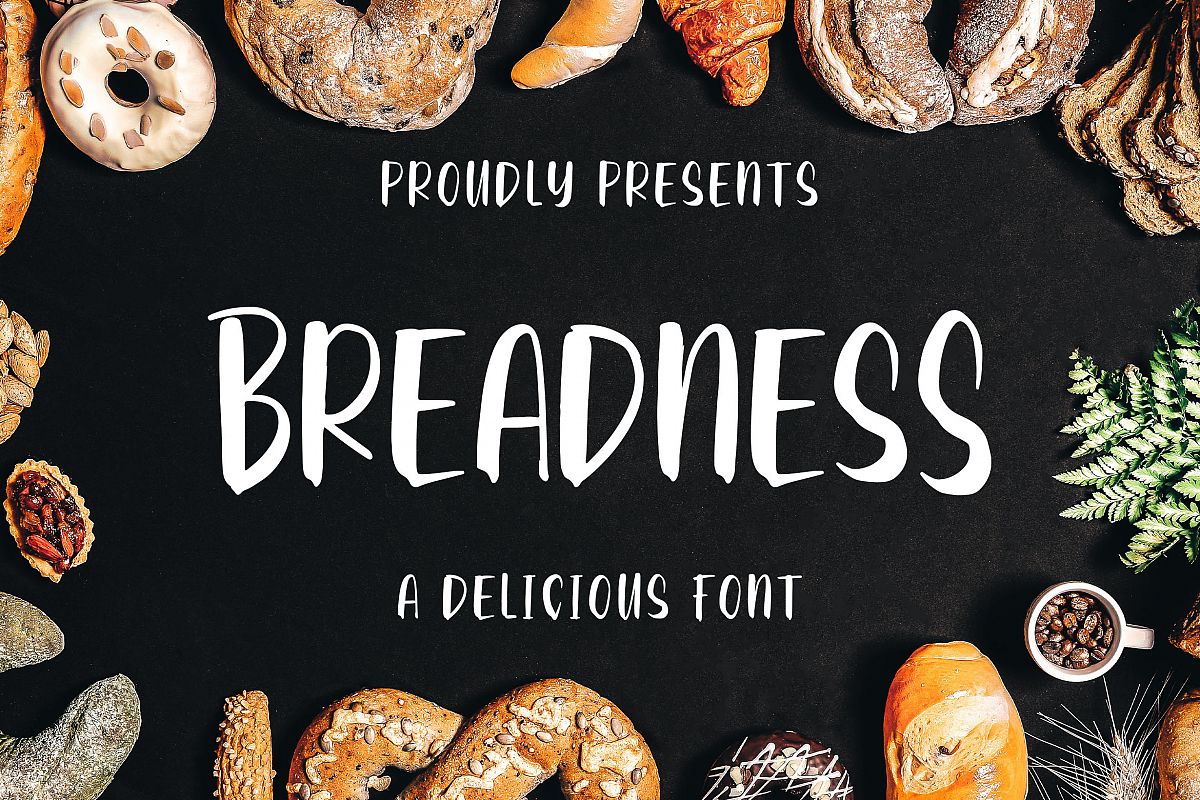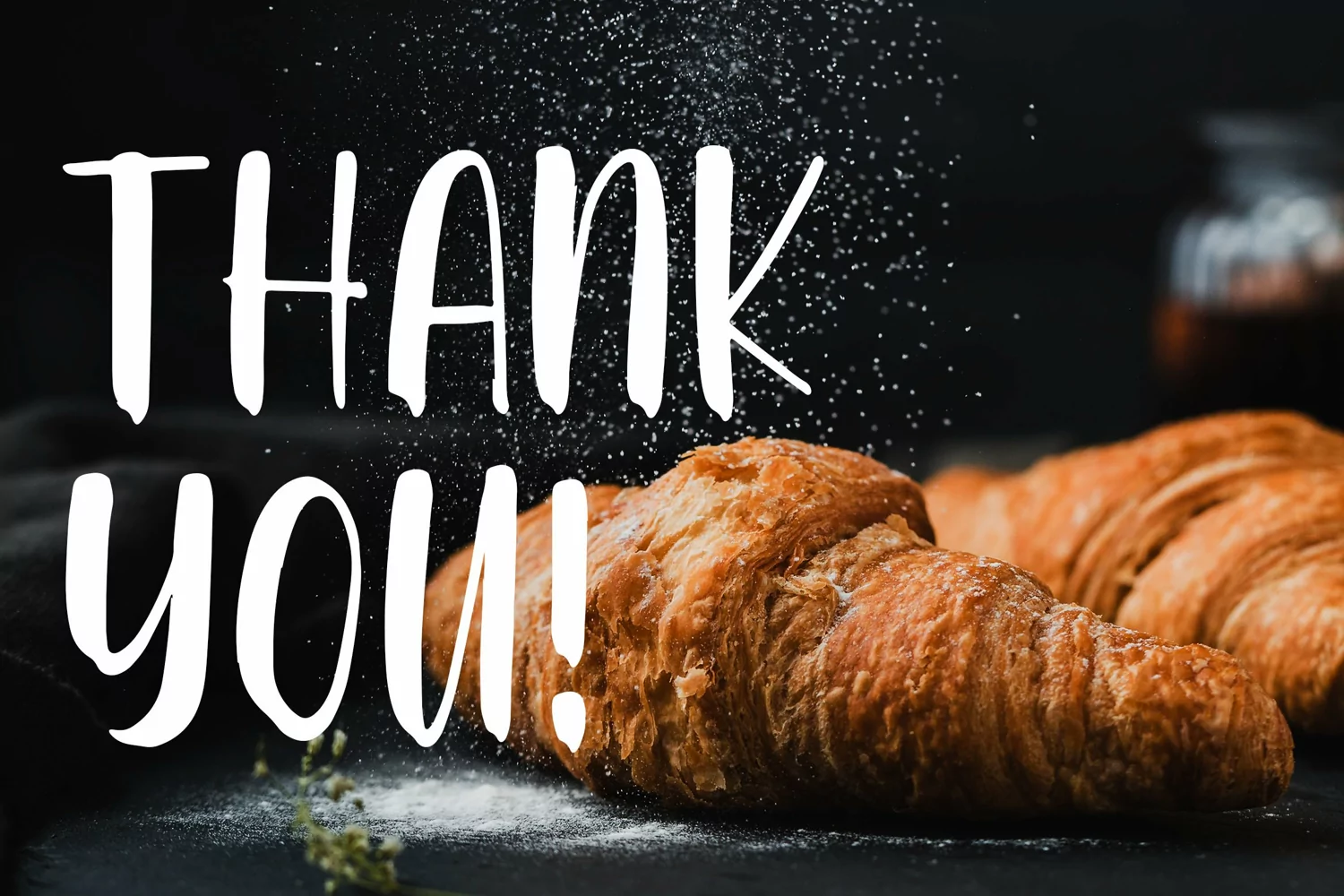
Introducing of our new product the name Breadness a Delicious Font. Breadness made with markers into digital this font is a fun theme very good for signature, poster, branding, logotype etc
MULTILINGUAL ACCENT :ŽžŠŒšŸÀÁÂÃÄÅÆÇÈÉÊËÌÍÎÏÐŁÑÒÓÔÕÖØÙÚÛÜÝßàáâãäåæçèéêëìíîïłñòóôõöøùúûüýÿ
FEATURES :- Uppercase